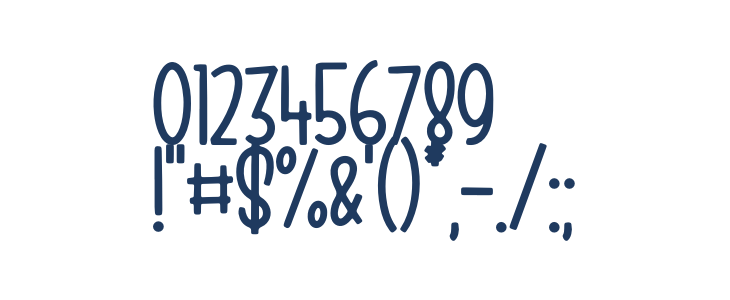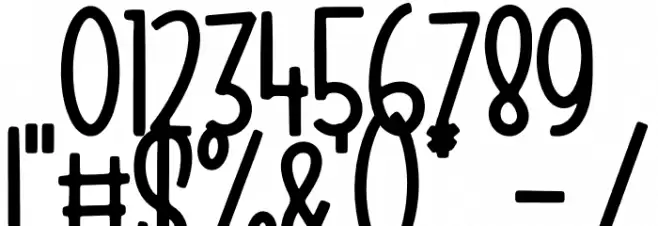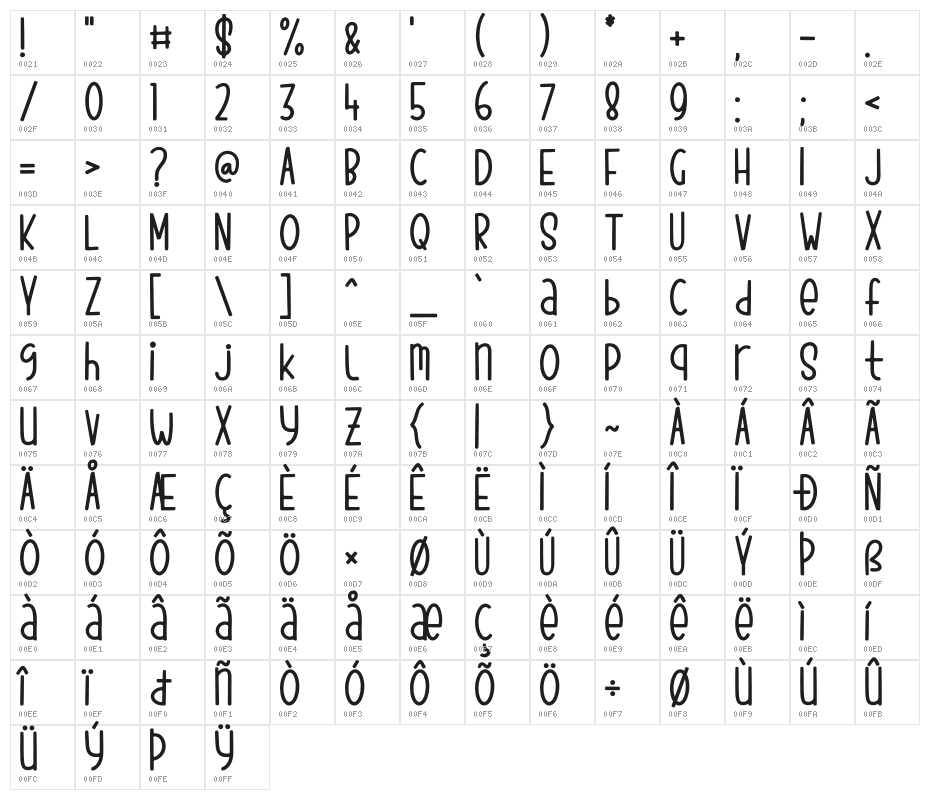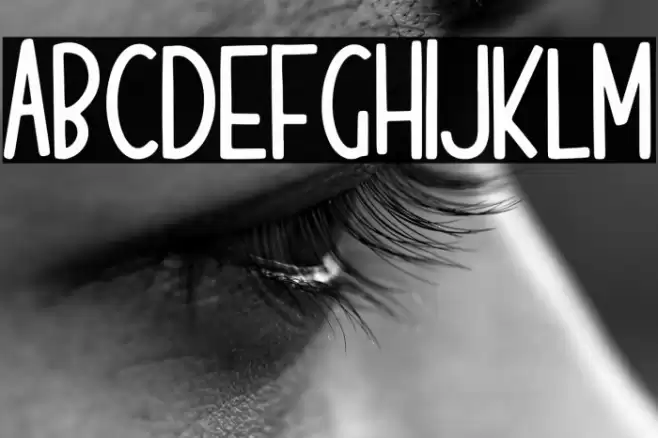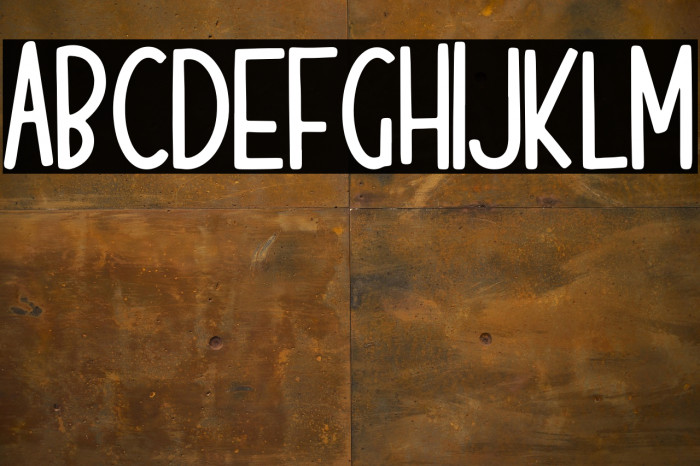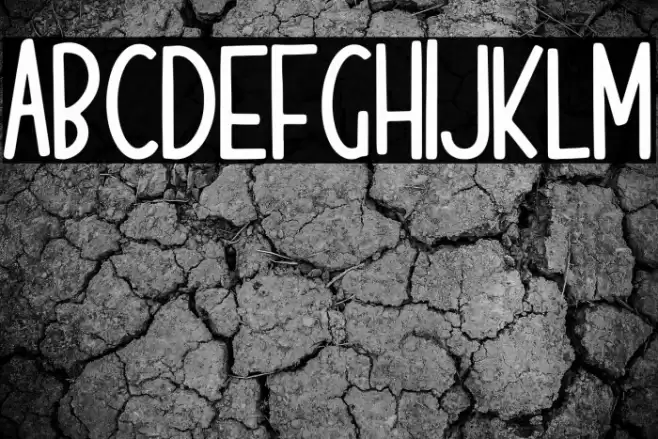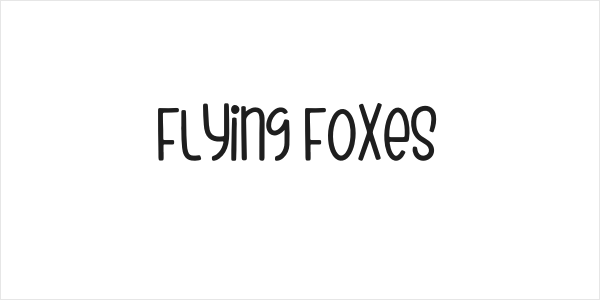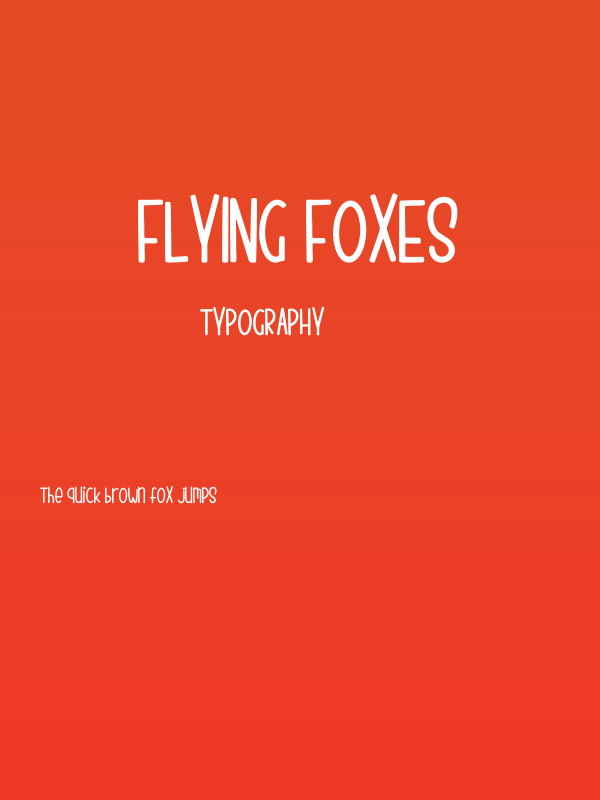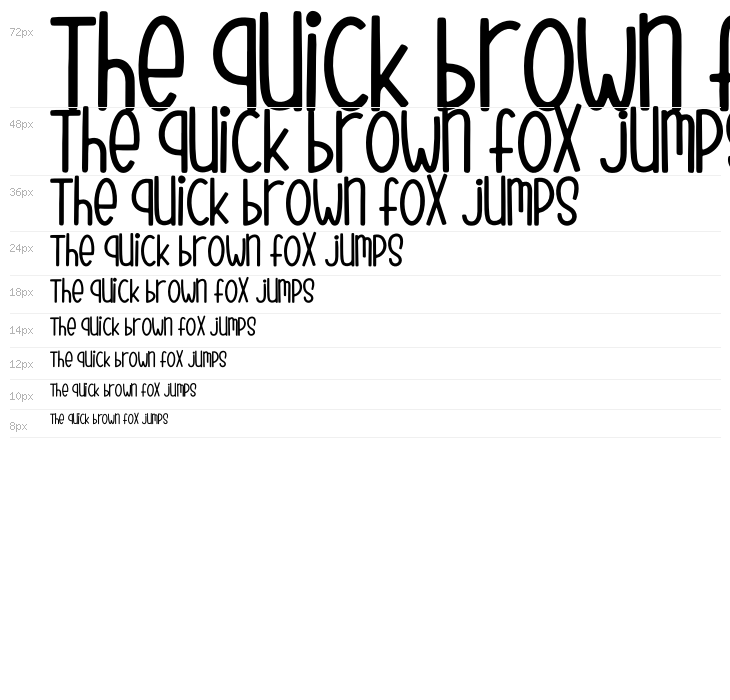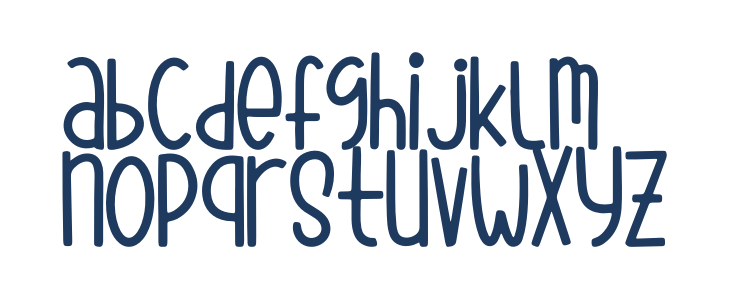
Flying Foxes Font
Flying Foxes Description
This font features a playful and whimsical style, characterized by its tall, narrow letters with rounded edges. The uppercase and lowercase letters maintain a consistent height, giving it a uniform appearance. The strokes are bold and smooth, with a slight variation in thickness that adds a hand-drawn feel. The numbers and special characters follow the same design principles, ensuring a cohesive look across all elements. This font exudes a friendly and approachable vibe, making it suitable for projects that require a touch of personality and charm.